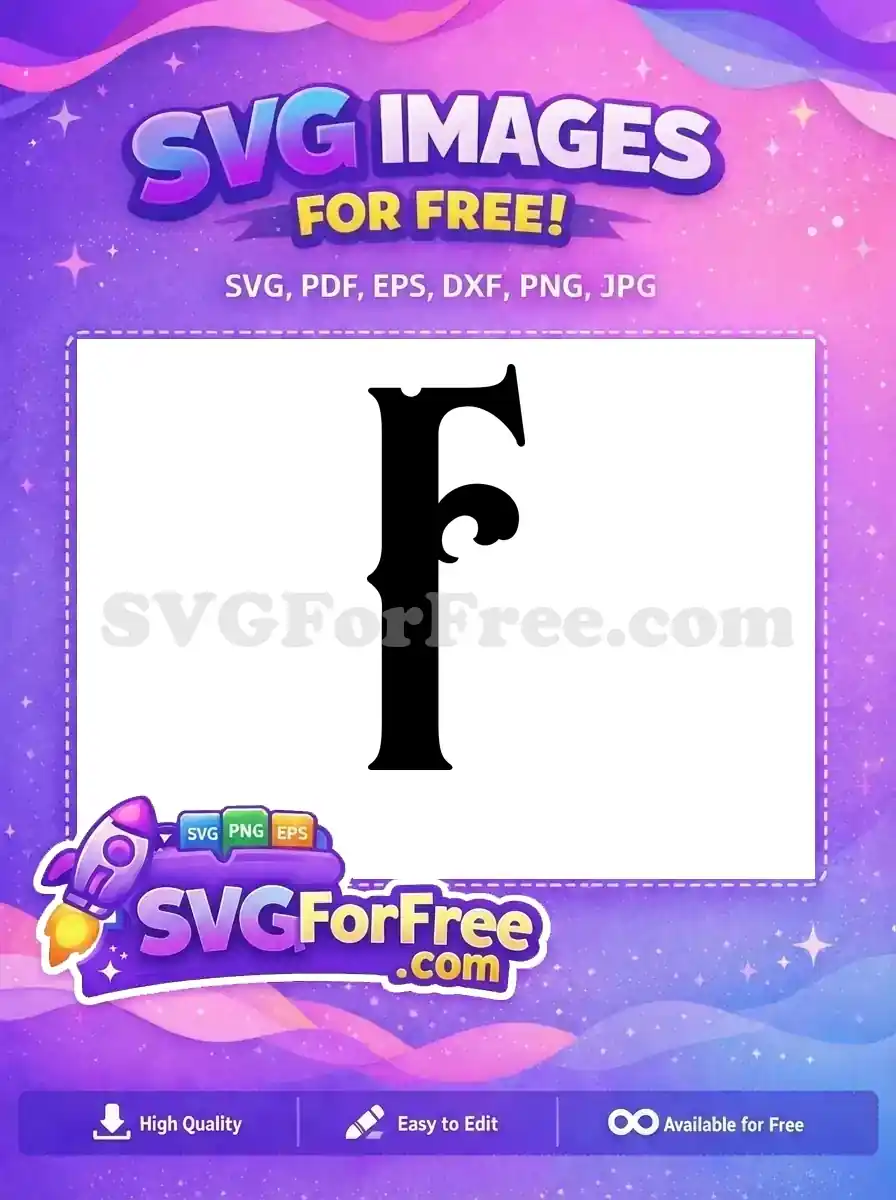
Free Black Font Free Letter F Initial Free SVG – Instant Download
Bold black uppercase F with a curved top serif and thick stem free design.
Free Black Font Free Letter F Initial Free SVG